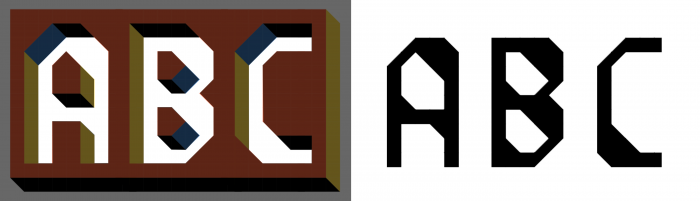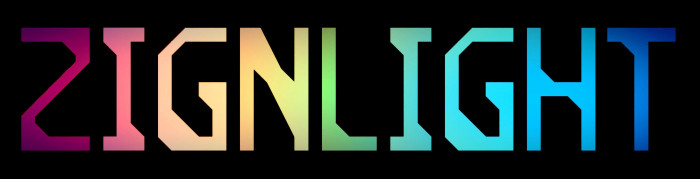
It's silly (but I couldn't get it out of my head): This is the font inside zignbox. Absolute negative space use. Unicase with alternates, of course... But it works well!
Could you please stop making me wanna eat chocolate with those delicious looking samples!
It somehow reminds me of classic digital age style lettering similar to MICR letters.
@Sed4tives: Choco is a good companion, believe me, but don't let it speak for you. Honestly talking, this font appeared by itself infront of my eyes, I don't have full control over the glyphs because I've tried to keep the existing negative space in the zignbox letters to recreate these new ones.
Hah my friend, ain't nothing wrong with the letters, they look rather attractive to be honest! 👍🏿
Surprisingly solid font born from negative space! Reminiscent of MICR style indeed. Nice looking color sample above.
@Yautja: Yes, that was my initial surprising idea and I've tried to preserve that negative space in 99% of the resulting glyphs. I'm glad you like it! I also added the "old computer" tag.
this is one extremely good negative space font! the varying thickness of different strokes gives me that handwriting feel, while still containing no curves whatsoever.
The shadows look awesome.
Surprising experiment, this came about in an interesting way. The diagonals on the counters are a great feature!